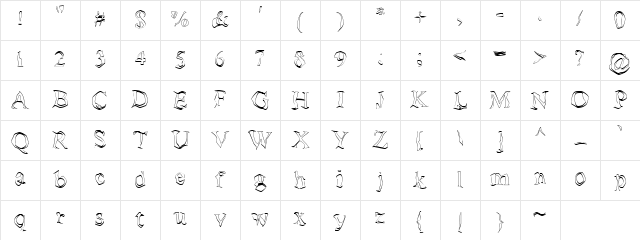
Poltergeist Hollow Regular
Design Context for Poltergeist Hollow
Poltergeist Hollow is a composed and adaptable typeface that performs quietly and consistently across a wide range of design contexts.
Pro Tip: Use Poltergeist Hollow in both headline and body roles to test its range before committing to a single application.